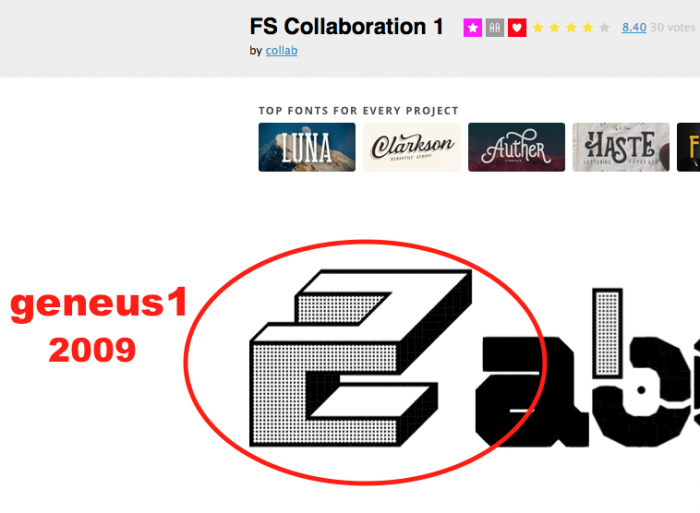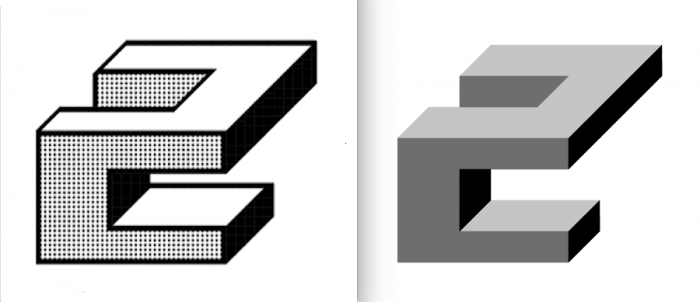
Based on an old glyph by the magnificent and always amazing Master geneus 1. Caps only. You can find an extra A at the "a" glyph and a little C placed at the "®". See also the colour version.
@elmoyenique - Amazing work; the colors (both grey-scale here and in your COL 'red/yellow' version) really add to this design!  :^)
I came across a handlettering sketch for this one, by any means possibly yours as well? Since I know ur not afraid of doing it by hand ?
A little bit based but cool